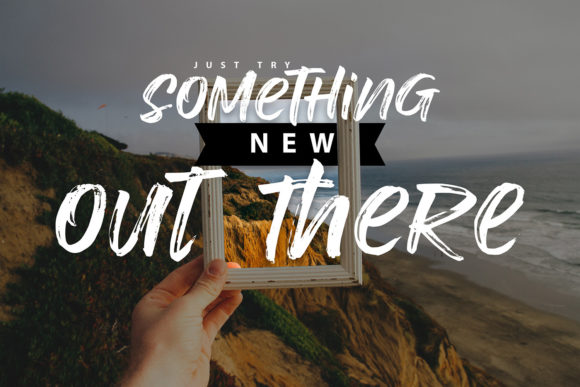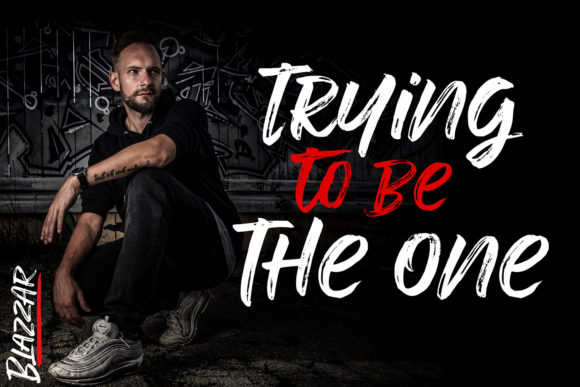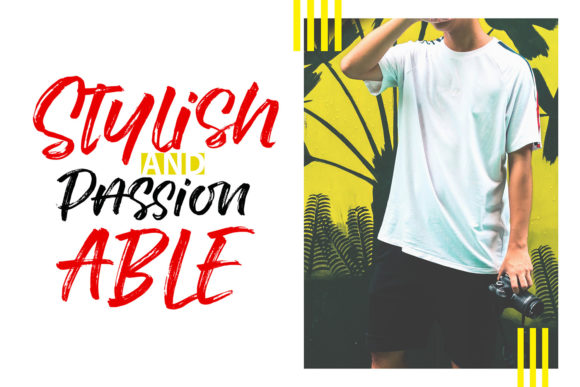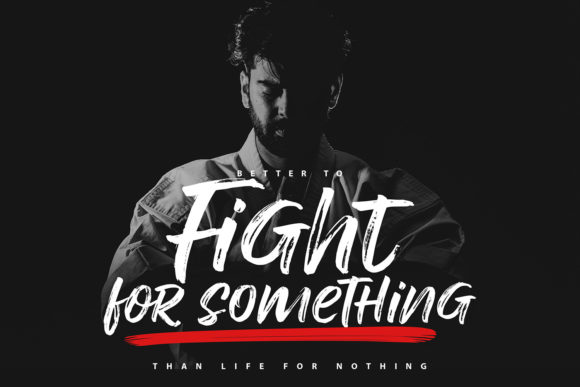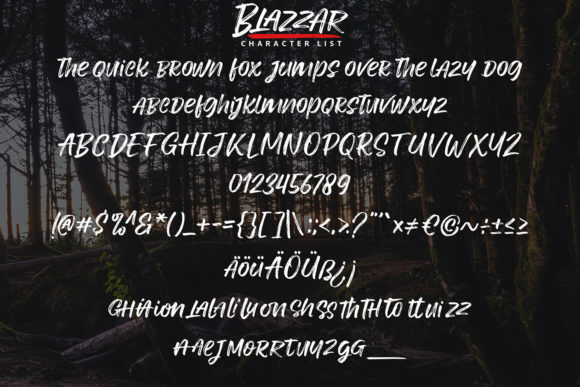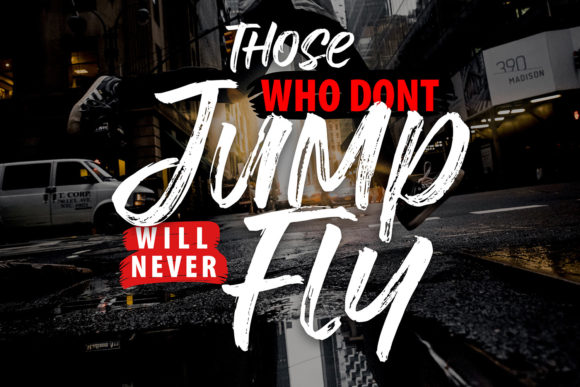
The Birth of a Street Art Masterpiece: Blazzar Font
Have you ever stared at a blank canvas, waiting for the perfect spark to ignite your creativity? That’s exactly what happened to me the day I stumbled upon the Blazzar Font. Its bold, graffiti-styled letters seemed to leap off the screen, beckoning me to unleash my inner artist. And that’s exactly what I did – creating designs that would make the streets proud.
Blazzar Font is more than just a typeface; it’s a statement piece that screams “street art” from every angle. Its PUA encoded design makes it easy to access all the glyphs and swashes, allowing you to unleash your creativity without any restrictions. Whether you’re designing t-shirts, sportswear, logos, or advertisements, Blazzar Font is the perfect companion to help you create eye-catching, edgy designs that stand out from the crowd.
Key Features of Blazzar Font
- Unique Characteristics: Blazzar Font features a dynamic, energetic, and modern design, making it suitable for headings, titles, and other display typography.
- Kerning and Ligatures: Blazzar Font includes advanced kerning and ligature features, ensuring smooth and elegant typography in complex text settings.
Blazzar Font Review
Overall, I think the Blazzar font has some great qualities, but it also has a few areas where it falls short. ✨
- Unique Personality: Blazzar font has a bold, energetic personality that’s perfect for capturing attention.
- Great for Headlines: The font’s bold lines and angular shapes make it ideal for headlines and titles.
- Fun and Playful: Blazzar font has a fun and playful vibe that’s perfect for creative projects.
- Readability Issues: At smaller font sizes, Blazzar font can become difficult to read due to its bold lines and complex shapes.
- Limited Font Pairing Options: Blazzar font’s unique personality can make it difficult to pair with other fonts, limiting its versatility.
- Not Suitable for Body Text: Due to its bold and playful nature, Blazzar font is not well-suited for body text or large blocks of text.
- ⚠️ Limited Font Sizes: Blazzar font is not optimized for small font sizes, which can lead to readability issues.
Overall, I think the Blazzar font is a great choice for projects that require a bold and attention-grabbing font, but it may not be the best choice for projects that require readability and versatility.